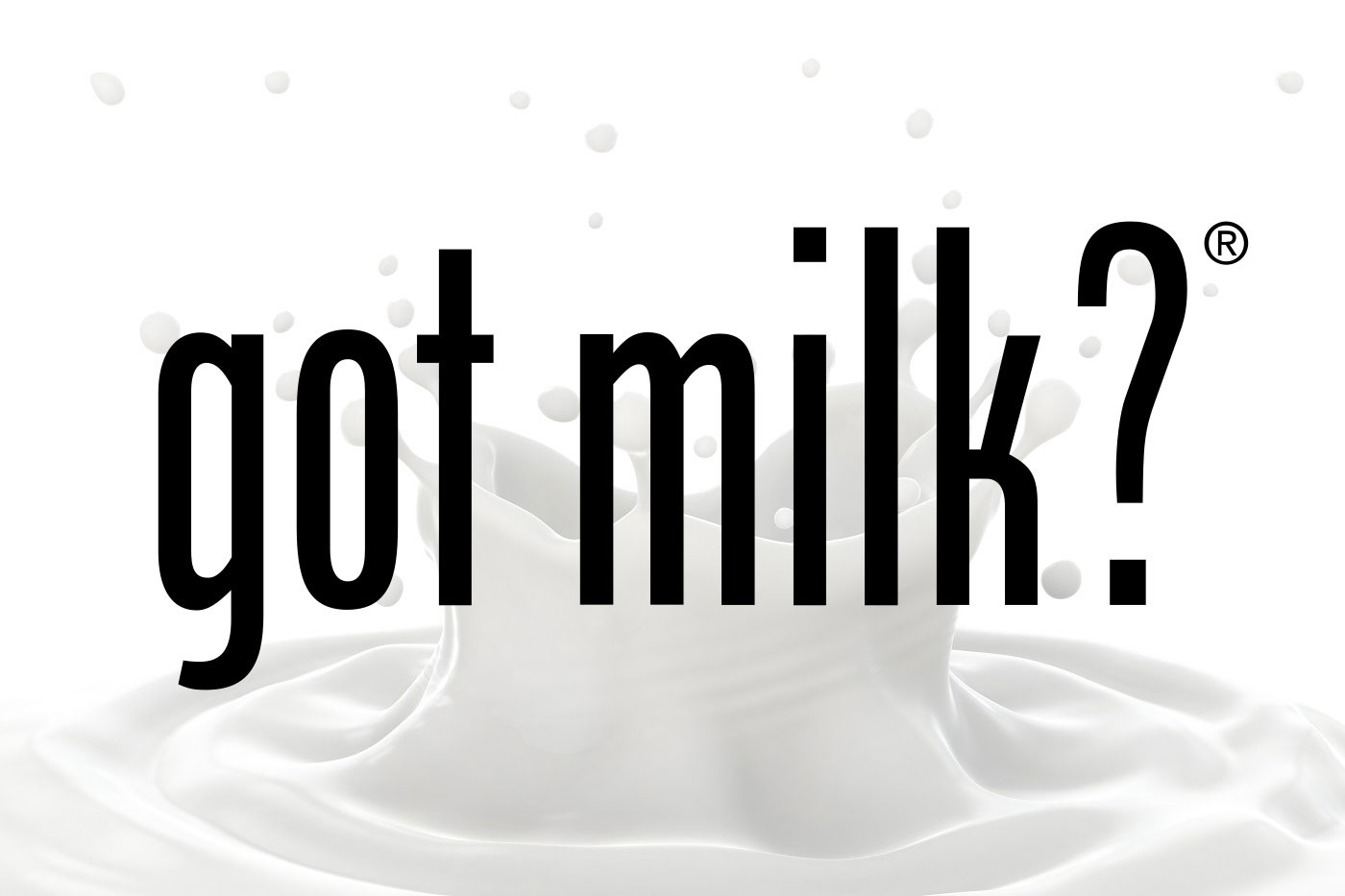
The Fascinating Tale Of The ‘Got Milk?’ Font
got milk font: A Classic Typeface with a Memorable History
Fonts play a vital role in shaping the way we perceive and interact with written content. From elegant and sophisticated to bold and impactful, fonts have the power to convey emotions and enhance the overall message of a text. One such font that has achieved iconic status is the Got Milk font.
The Got Milk font is a distinctive and recognizable typeface that gained popularity through its association with the famous Got Milk? advertising campaign. Developed by the advertising agency Goodby, Silverstein & Partners in 1993 for the California Milk Processor Board, the campaign aimed to increase milk consumption among Americans.
The font itself is a modified version of the Bodoni font, which was originally created in the late 18th century by Italian typographer Giambattista Bodoni. The designers behind the Got Milk font added their own unique twist to the classic font, making it instantly recognizable and memorable.
What sets the Got Milk font apart is its bold and slightly condensed letterforms. The letters are perfectly balanced, with clean lines and sharp corners that give it a modern and sophisticated look. The font’s simplicity and clarity make it easy to read, even from a distance, making it ideal for billboards and other large-scale advertisements.
The success of the Got Milk campaign can largely be attributed to the font’s ability to capture attention and leave a lasting impression on viewers. The font quickly became synonymous with the campaign, with its bold letters appearing alongside catchy slogans and witty taglines. The combination of the font and the campaign’s clever messaging created a powerful and engaging advertising experience.
In addition to its use in advertising, the Got Milk font has also been widely adopted by individuals and businesses for various purposes. Its clean and modern design makes it versatile and suitable for a wide range of applications, including logos, packaging, and even personal projects like invitations or greeting cards.
Over the years, the Got Milk font has become a cultural reference and an integral part of popular culture. It has been parodied, imitated, and referenced in countless forms of media, further cementing its status as an iconic font.
In conclusion, the Got Milk font is a classic typeface that has made its mark in the advertising world. Its bold and distinctive design, combined with the successful Got Milk? campaign, has helped it gain recognition and remain a memorable font. Whether used in advertising or personal projects, the font’s timeless appeal continues to captivate audiences worldwide.